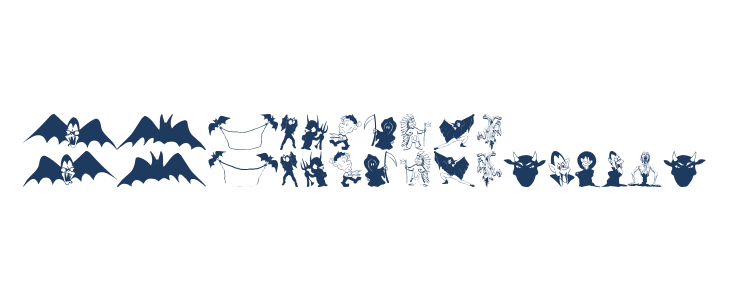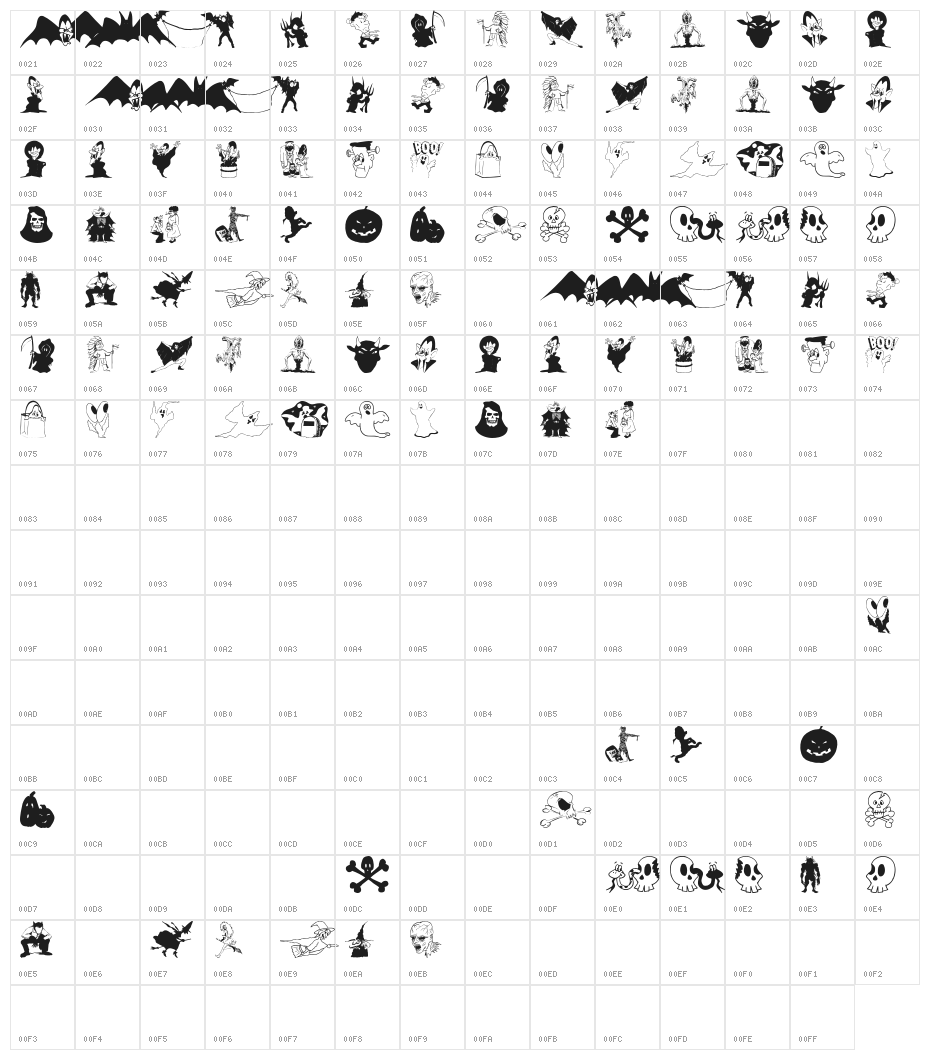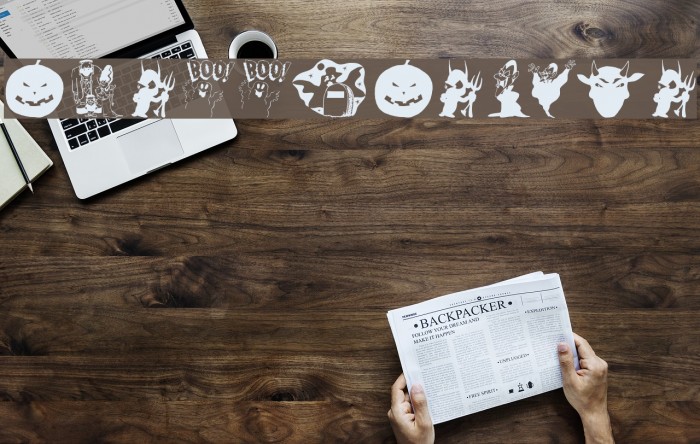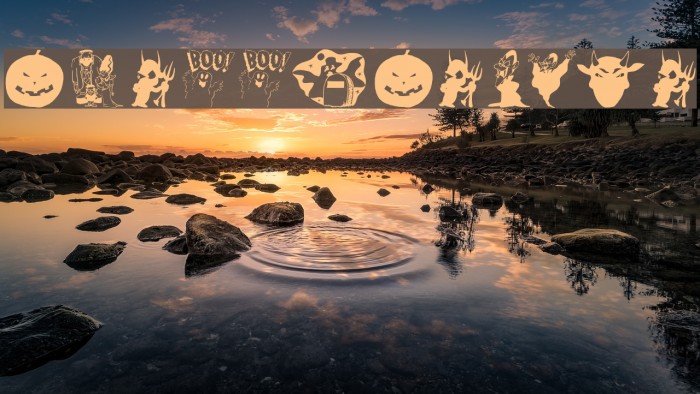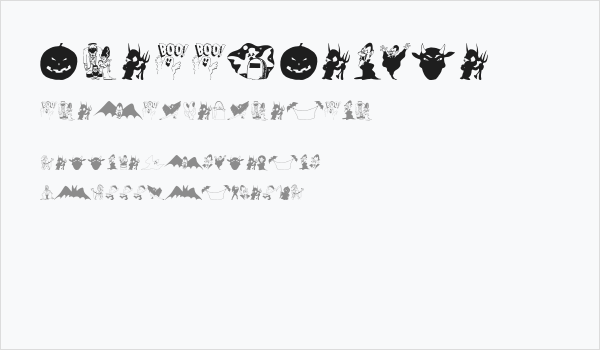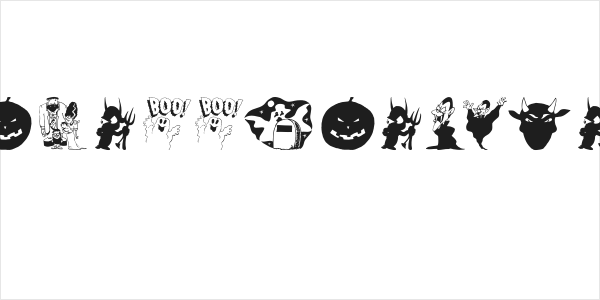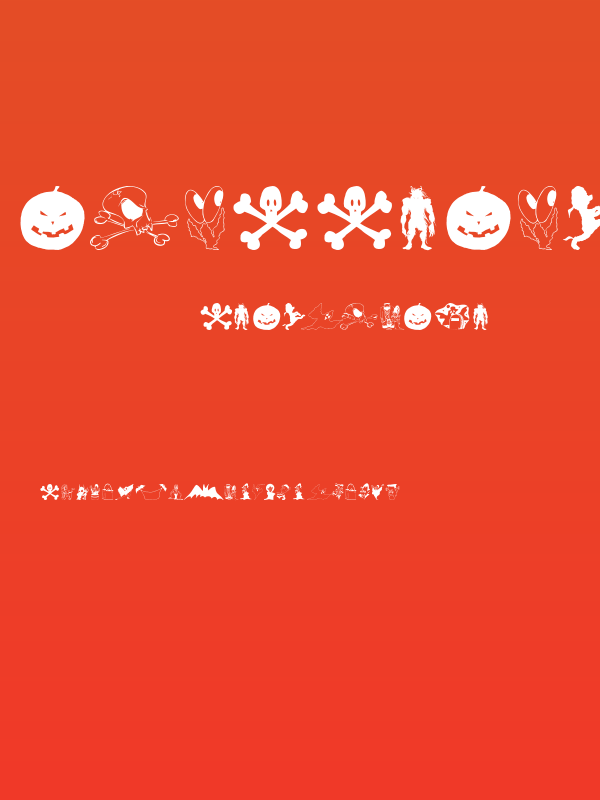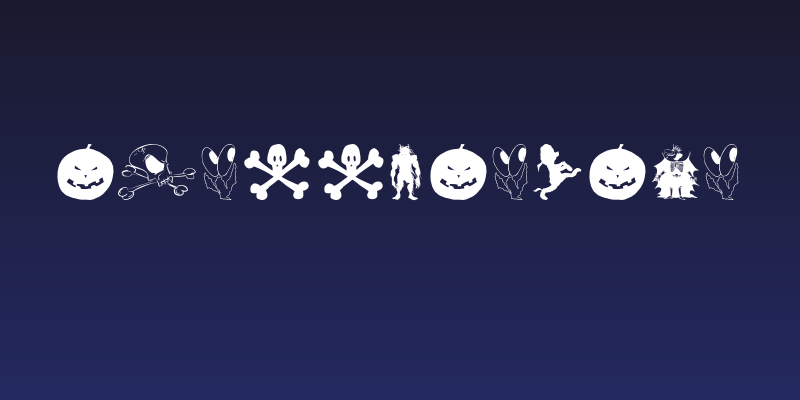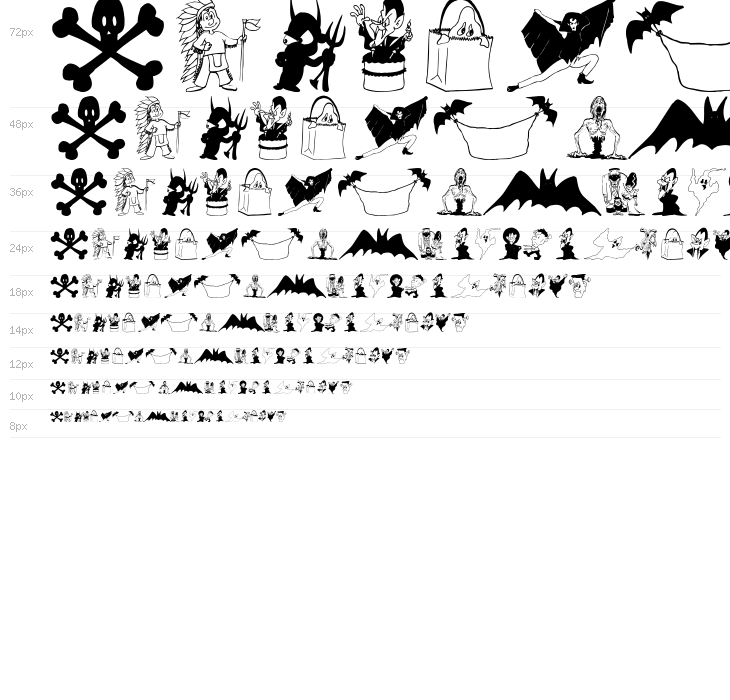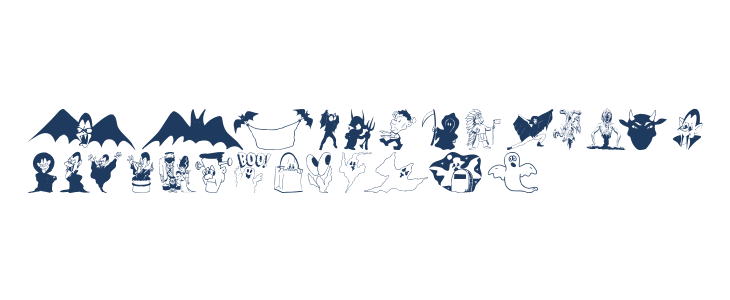
PrettyPeople Font
PrettyPeople Description
This is a decorative font featuring a variety of playful and spooky Halloween-themed characters. Each character is represented by a unique illustration, including ghosts, bats, pumpkins, and other Halloween motifs. The style is whimsical and cartoonish, with bold outlines and a mix of solid and detailed elements. The font captures a festive and fun atmosphere, suitable for seasonal designs. The characters are evenly spaced, ensuring clarity and readability despite the intricate designs.
| Proposed Projects | Ideal for Halloween party invitations, themed posters, children's books, and festive decorations. |